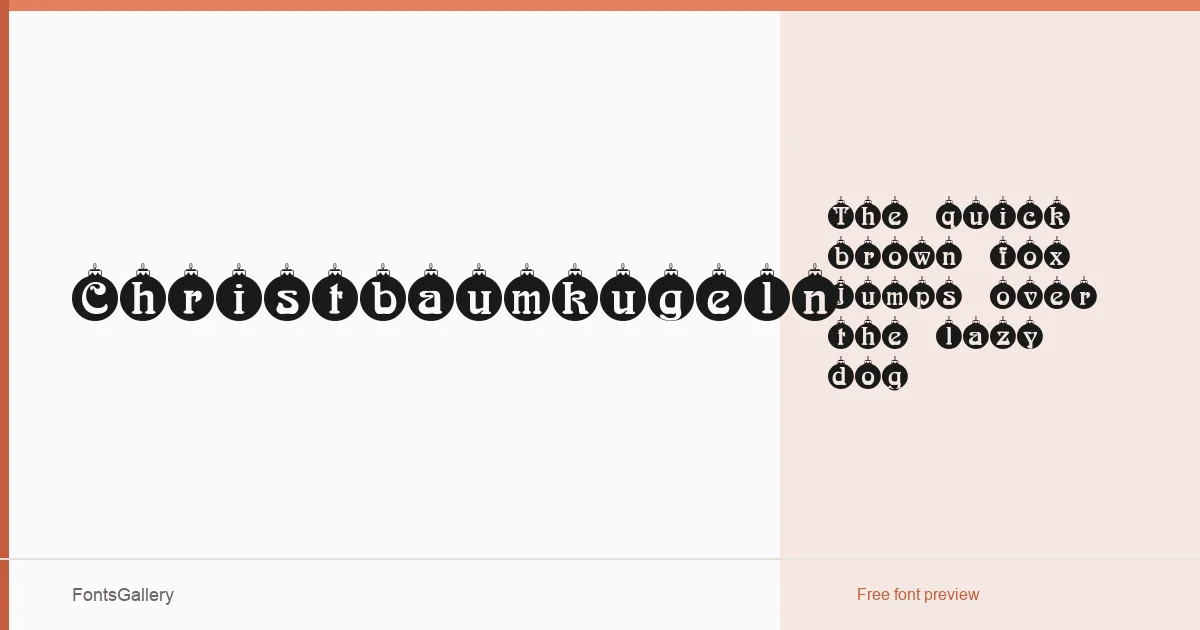
About Christbaumkugeln Font
Christbaumkugeln is a decorative typeface from Typographer Mediengestaltung that brings a festive, whimsical charm to any design project. Its playful vintage character makes it instantly evocative of holiday tradition and celebratory cheer. This typeface is a distinctive choice for designers seeking to infuse warmth and nostalgia into their creative work.
Rooted in a decorative aesthetic, Christbaumkugeln features letterforms with a playful and whimsical quality that nods to vintage display traditions. Each character carries an ornamental personality that feels both nostalgic and eye-catching, making it stand out as a true display face. The overall style balances vintage charm with a lighthearted sense of fun that commands attention at larger sizes.
Christbaumkugeln shines brightest in expressive, high-impact applications such as posters, packaging, greeting cards, and T-shirt designs where its decorative personality can take center stage. Its bold, ornamental character works especially well for seasonal or themed creative projects that call for visual warmth and distinction. For complementary pairings, consider combining it with the clean neutrality of Helvetica or the character-rich styling of Aresink to achieve a balanced typographic composition.